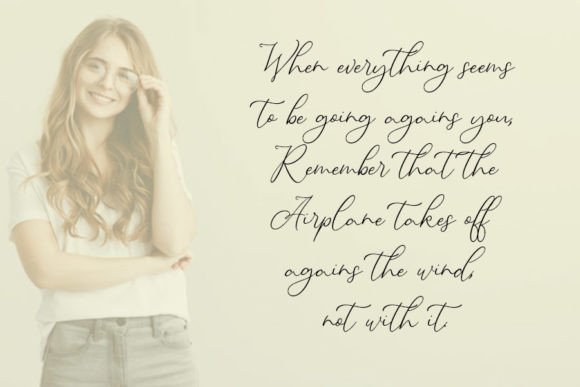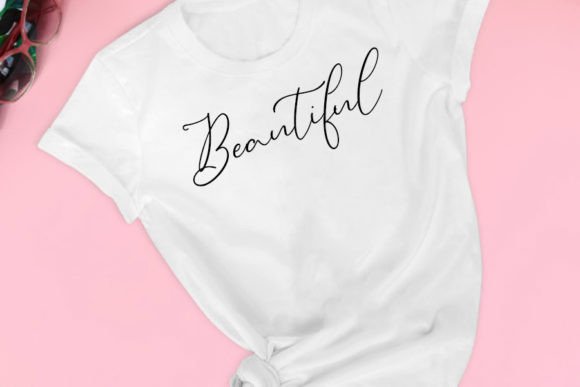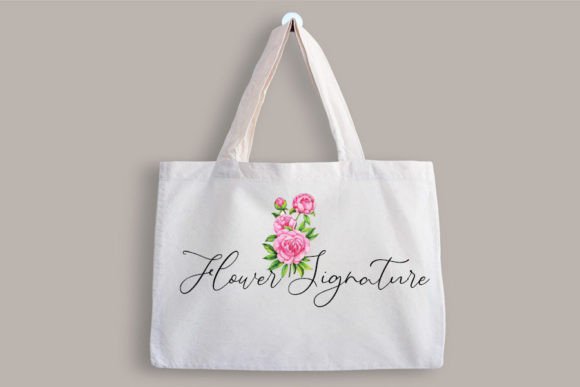
The California Font: A Delicate, Elegant Script to Elevate Your Designs
I’ll never forget the moment I stumbled upon the California font while working on a branding project for a luxury client. I had spent hours scouring the internet for the perfect script font, but nothing seemed quite right. That was until I saw California – a delicate, elegant, and flowing handwritten font that instantly captured the essence of my client’s vision. In this article, I’ll share my experience with California, its features, and how to make the most of it in your designs.
An Honest Review of California Font
- ✅ Beautifully balanced characters that exude elegance and sophistication
- ✅ Highly versatile and pairs well with a wide range of design styles
- ✅ Delicate and flowing script that adds a touch of luxury to any project
- ✅ Easy to read and understand, even in smaller font sizes
- 🤔 May not be the best choice for very bold or edgy designs, as it leans more towards elegance and sophistication
- ⚠️ Some users may find the font a bit too delicate for certain applications, such as large headlines or titles
The Story Behind California Font
California was designed by a team of typographers who sought to create a beautiful, elegant script font that would evoke the feeling of luxury and sophistication. The font’s creator drew inspiration from classic calligraphy and modern digital typography to craft a unique and versatile font that would suit a wide range of design applications.
| Font Name | California Font |
| Author | Leontyn Art |
Q: What is the California font and what is it used for?
A: California is a delicate, elegant, and flowing handwritten font that is perfect for designs that require a touch of luxury and sophistication. It’s commonly used for branding, packaging, wedding invitations, and other high-end design projects.
Q: Is California a difficult font to read?
A: No, California is a highly legible font, even in smaller font sizes. Its delicate and flowing script makes it easy to read and understand, making it perfect for body text and other long-form content.
Q: Can I use California with other fonts?
A: Yes, California pairs well with a wide range of fonts, from sans-serif fonts like Arial and Helvetica to serif fonts like Georgia and Times New Roman. Experiment with different font combinations to find the perfect pairing for your design.